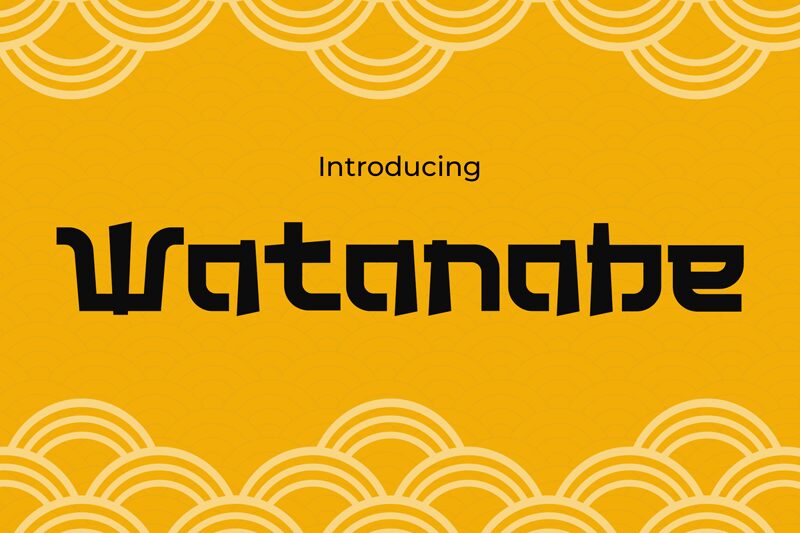
Watanabe
Watanabe font by Pinisiart is a free faux Japanese decorative typeface that instantly sets a bold, Far East–inspired mood. Heavy black strokes bend and twist with a slight wave, while vertical cuts and angular corners echo brush lettering translated into sharp, digital shapes. The result feels punchy and rhythmic—like signage glowing over a bustling night market—yet still clean enough to read at a glance.
Using Watanabe, you can brand sushi bars, ramen shops, noodle pop-ups, Asian street food trucks, gaming titles, and themed event posters with a consistent, immersive look. This free font shines in logos and large headlines where its sculpted curves and blocky structure can breathe. Pair Watanabe with a simple, neutral sans serif for body text, and let this distinctive faux Japanese voice do the storytelling up top.